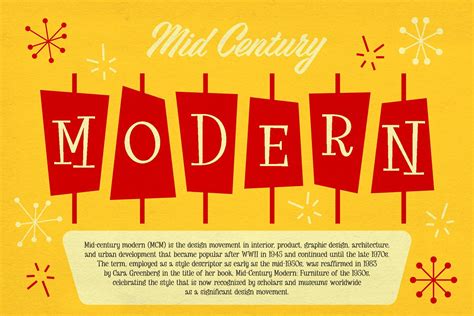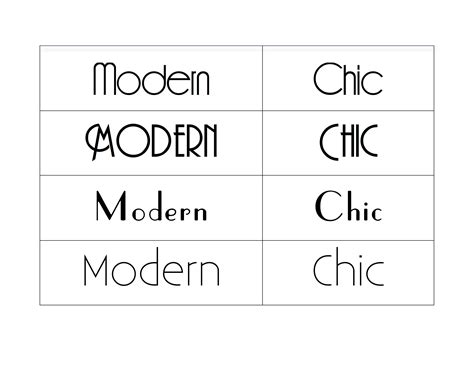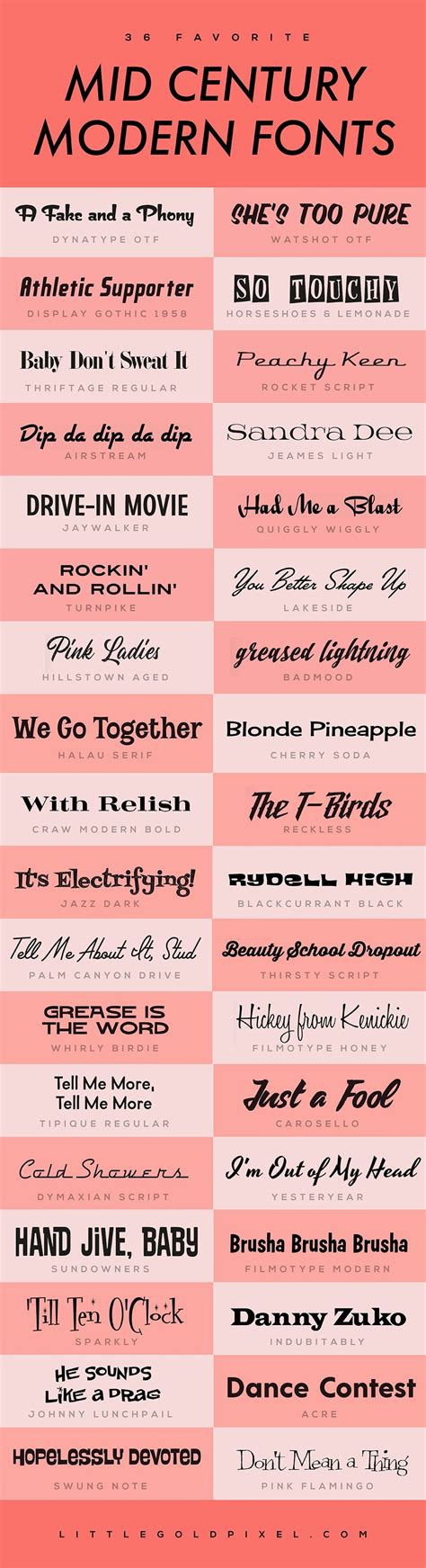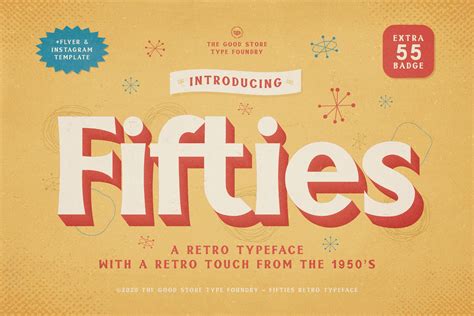
Mid Century Fonts have made a remarkable comeback in recent years, captivating designers and enthusiasts alike with their retro charm and timeless appeal. These fonts, which originated in the mid-20th century, are characterized by their clean lines, geometric shapes, and a sense of optimism that reflects the post-war era. Whether you're a graphic designer, a branding specialist, or simply someone who appreciates the aesthetics of the past, understanding the nuances of Mid Century Fonts can add a unique touch to your projects.
What Are Mid Century Fonts?
Mid Century Fonts are a category of typefaces that emerged during the mid-20th century, roughly between the 1930s and the 1960s. This period was marked by significant cultural and technological advancements, which influenced the design trends of the time. Mid Century Fonts are known for their simplicity, elegance, and a touch of futurism. They often feature:
- Clean, geometric shapes
- Bold, striking forms
- A sense of modernity and optimism
- Inspiration from Art Deco and Bauhaus movements
The History of Mid Century Fonts
To truly appreciate Mid Century Fonts, it’s essential to delve into their historical context. The mid-20th century was a time of rapid change and innovation. The post-war boom brought about a new sense of optimism and a desire for progress. This era saw the rise of modernist design principles, which emphasized functionality, simplicity, and the use of new materials and technologies.
Mid Century Fonts were a reflection of these principles. Designers of the time sought to create typefaces that were both aesthetically pleasing and highly functional. The fonts often featured bold, geometric shapes that were easy to read and could be used in a variety of applications, from advertising to product packaging.
Characteristics of Mid Century Fonts
Mid Century Fonts are distinguished by several key characteristics that set them apart from other typefaces. These characteristics include:
- Geometric Shapes: Many Mid Century Fonts feature geometric shapes such as circles, squares, and triangles. These shapes give the fonts a modern, streamlined look.
- Bold and Striking Forms: Mid Century Fonts often have bold, striking forms that make them stand out. This boldness was a reflection of the optimism and confidence of the era.
- Simplicity and Elegance: Despite their boldness, Mid Century Fonts are also known for their simplicity and elegance. They often have clean lines and minimal ornamentation, making them versatile and easy to use.
- Inspiration from Art Deco and Bauhaus: Mid Century Fonts were influenced by the Art Deco and Bauhaus movements, which emphasized geometric shapes, simplicity, and functionality.
Popular Mid Century Fonts
There are numerous Mid Century Fonts that have stood the test of time and continue to be popular among designers today. Some of the most notable examples include:
| Font Name | Designer | Year |
|---|---|---|
| Futura | Paul Renner | 1927 |
| Helvetica | Max Miedinger | 1957 |
| Gotham | Tobias Frere-Jones | 2000 |
| Optima | Hermann Zapf | 1958 |
| Univers | Adrian Frutiger | 1957 |
Using Mid Century Fonts in Modern Design
Mid Century Fonts are not just a relic of the past; they continue to be relevant and influential in modern design. Their timeless appeal makes them a versatile choice for a wide range of projects. Here are some tips for using Mid Century Fonts in your designs:
- Pairing with Other Fonts: Mid Century Fonts can be paired with a variety of other typefaces to create a balanced and harmonious design. For example, pairing a bold Mid Century Font with a more delicate serif font can create a striking contrast.
- Using in Branding: Mid Century Fonts are often used in branding to convey a sense of modernity, elegance, and timelessness. They can be used in logos, packaging, and advertising to create a strong and memorable brand identity.
- Applying in Web Design: Mid Century Fonts can also be used in web design to create a clean, modern look. They are highly readable and can be used in headings, body text, and navigation menus.
- Incorporating in Print Design: Mid Century Fonts are a great choice for print design, including brochures, posters, and magazines. Their bold, striking forms make them stand out on the page and catch the reader’s attention.
💡 Note: When using Mid Century Fonts, it's important to consider the overall aesthetic of your project. While these fonts can add a touch of retro charm, they should be used in a way that complements the rest of your design.
Mid Century Fonts in Pop Culture
Mid Century Fonts have had a significant impact on pop culture, appearing in various forms of media and entertainment. Their distinctive style has been used in movies, television shows, and advertising to evoke a sense of nostalgia and retro charm. Some notable examples include:
- Mad Men: The popular television series “Mad Men” is set in the 1960s and features Mid Century Fonts in its title sequence and promotional materials. The show’s use of these fonts helps to create an authentic and immersive experience for viewers.